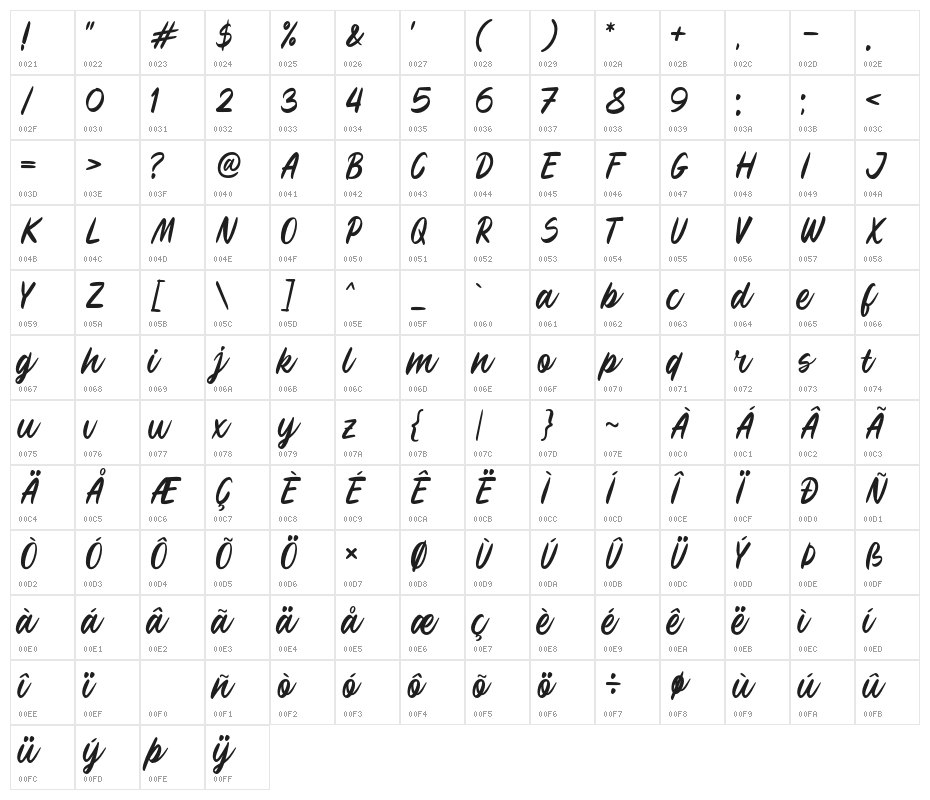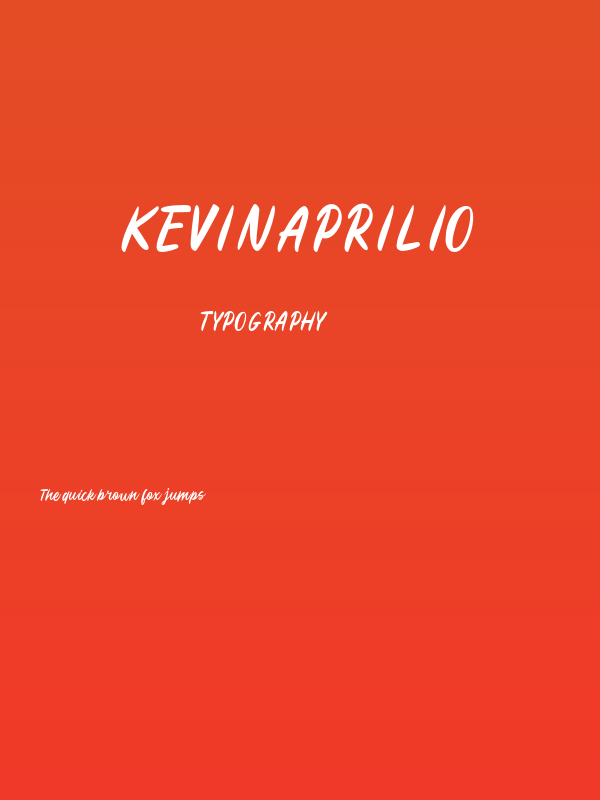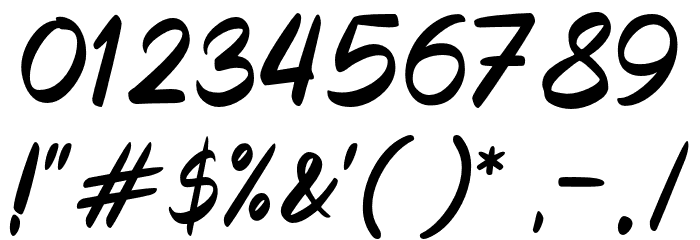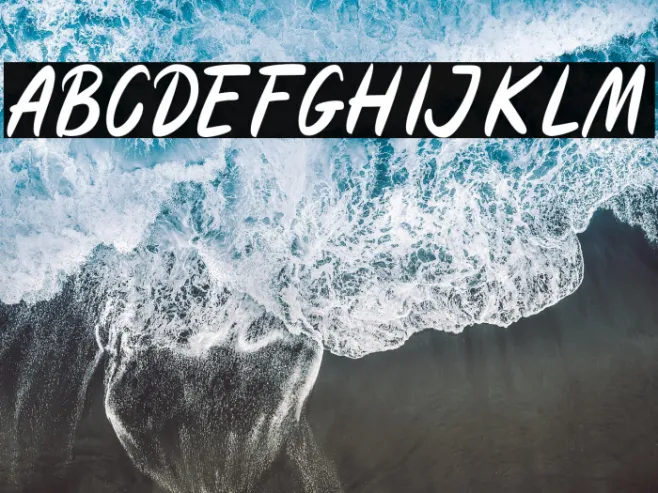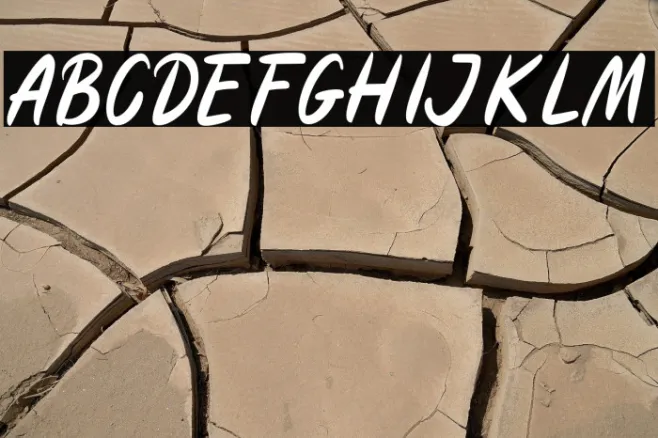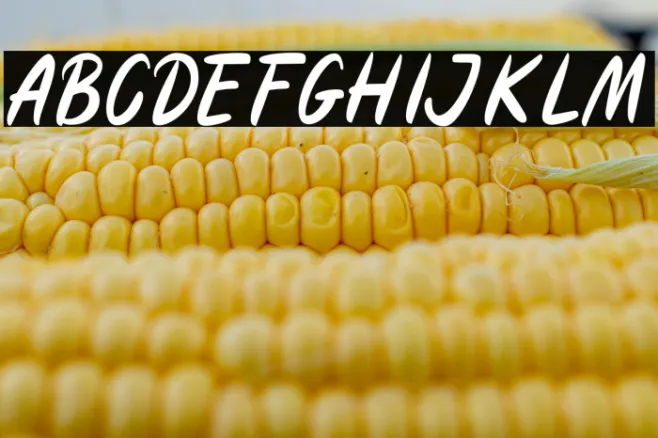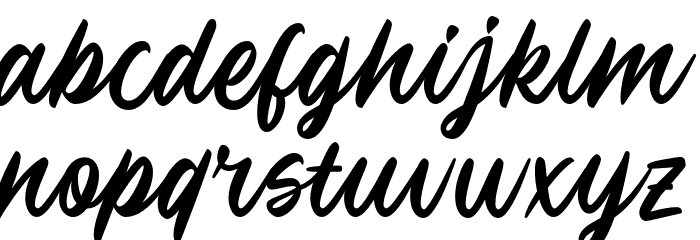
KevinAprilio Font
KevinAprilio Description
This font features a smooth, flowing script style that mimics natural handwriting. The letters are connected, giving it a cursive appearance, while maintaining a modern and stylish look. The strokes are consistent and slightly bold, providing good readability. The uppercase letters are elegantly crafted with a slight slant, and the lowercase letters maintain a cohesive flow. Numbers and special characters are designed to match the overall aesthetic, making this font versatile for various uses.